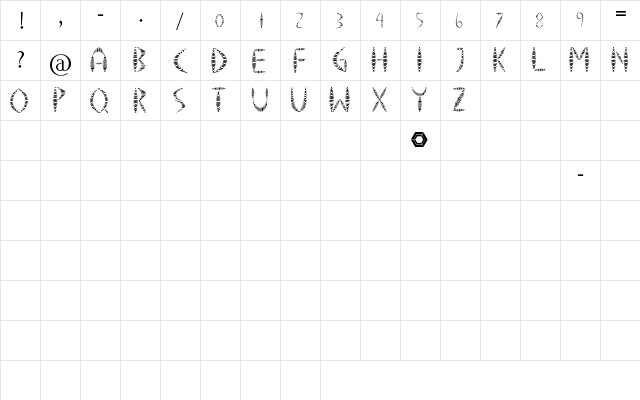
Springy Regular
| Designer | vidk |
Design Context for Springy Typeface
Springy is a composed and adaptable typeface that performs quietly and consistently across a wide range of design contexts.